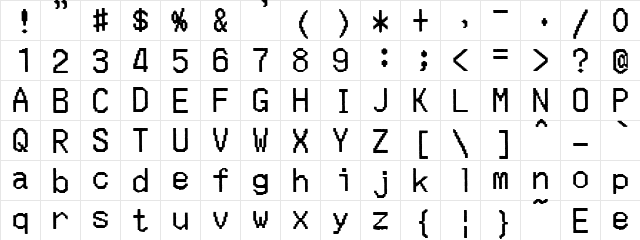
Merchant Copy Doublesize Regular
Design Context for Merchant Copy Doublesize Typeface
Merchant Copy Doublesize takes a measured approach to typography — its balanced proportions and neutral character make it a reliable workhorse for both digital and print work.